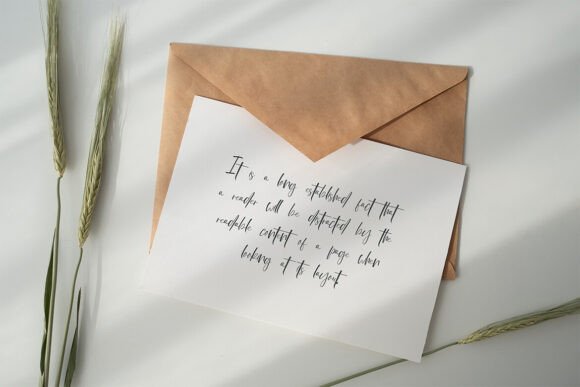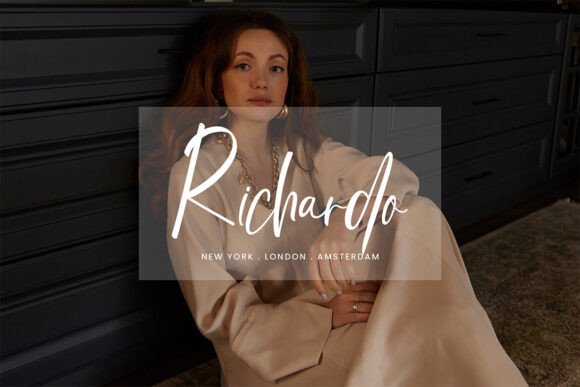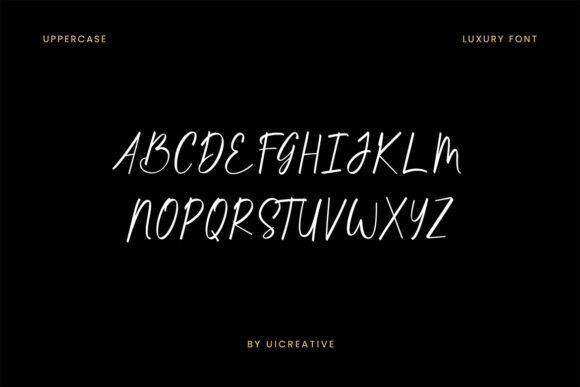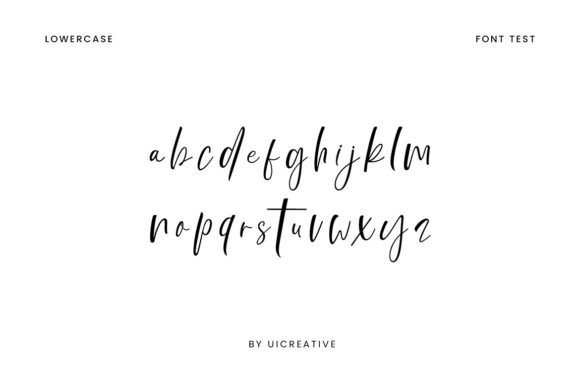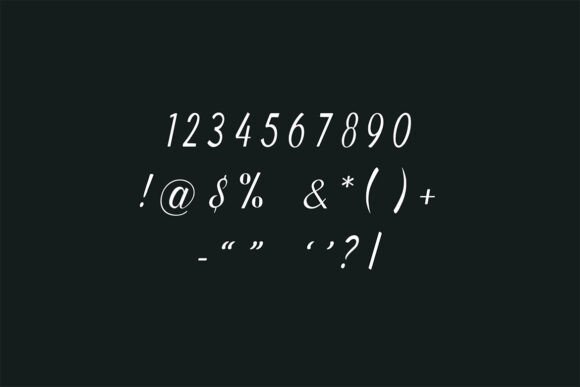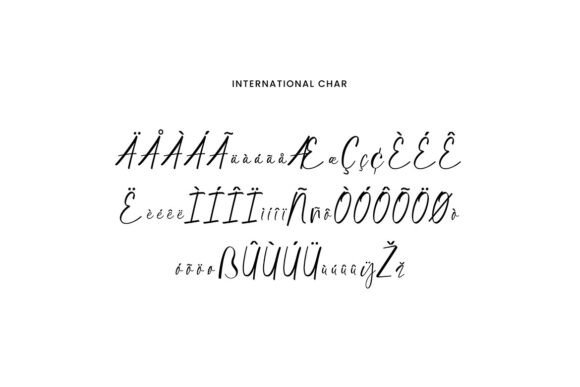
The Perfect Touch: Elevating Your Design with Catherina Signature Font
Have you ever found yourself staring at a blank page, searching for that elusive spark that will bring your design to life? For many creatives, it’s not just about getting the job done, but about infusing every project with a unique sense of style and personality. That’s where the Catherina Signature Modern Handwritten Font comes in – a beautiful, classy, and elegant display font that’s sure to elevate your work to new heights.
This versatile font is perfect for a wide range of projects, from signature and stationery to logo design, wedding invitations, and website headers. What sets Catherina Signature Font apart is its ability to seamlessly blend masculine and feminine qualities, making it an ideal choice for fashion-related branding or editorial design.
Catherina Signature Font Key Features
- Font Family: Catherina Signature Font, a high-end, elegant script font
- Unique Characteristics: Unique, flowing connections between letters, subtle flourishes, and elegant strokes, making it perfect for adding a touch of sophistication to your designs
Catherina Signature Font Review
I recently had the chance to work with the Catherina Signature Font, and I must say, it’s a beautiful addition to any design project. ✨ The elegant script style is perfect for creating a sophisticated and high-end feel. The font is well-crafted, with smooth connections between letters and a consistent weight.
- The Catherina Signature Font is ideal for logos, business cards, and other marketing materials where a touch of luxury is desired.
- The font’s versatility allows it to work well in both digital and print applications.
- The script style is perfect for creating hand-written or signature-like effects.
However, there are some limitations to consider. ⚠️ The font may not be suitable for body text, as it can be difficult to read in larger quantities. Additionally, the font’s complexity may make it challenging to customize or modify for specific design needs.
Overall, I’m impressed with the Catherina Signature Font. It’s a great choice for designers looking to add a touch of sophistication and elegance to their projects. With its elegant script style and versatility, it’s a valuable addition to any design library.
Getting the Most Out of Catherina Signature Font
Here are some tips to help you get the most out of Catherina Signature Font:
- Combine Catherina Signature Font with other fonts to create a visually appealing design.
- Use Catherina Signature Font for headings, titles, and other important text elements.
Catherina Signature Font is ideal for:
- Creating elegant and sophisticated designs.
- Adding a